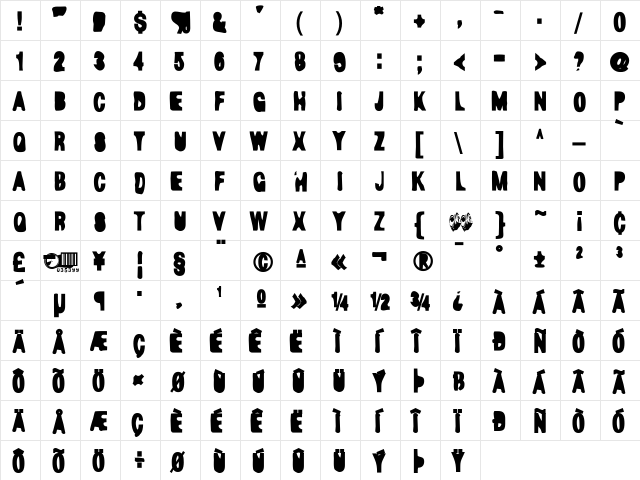
D44Caps Bold
Design Context for D44Caps Typeface
D44Caps takes a measured approach to typography — its balanced proportions and neutral character make it a reliable workhorse for both digital and print work. Its bold stroke weight gives it real presence on the page.